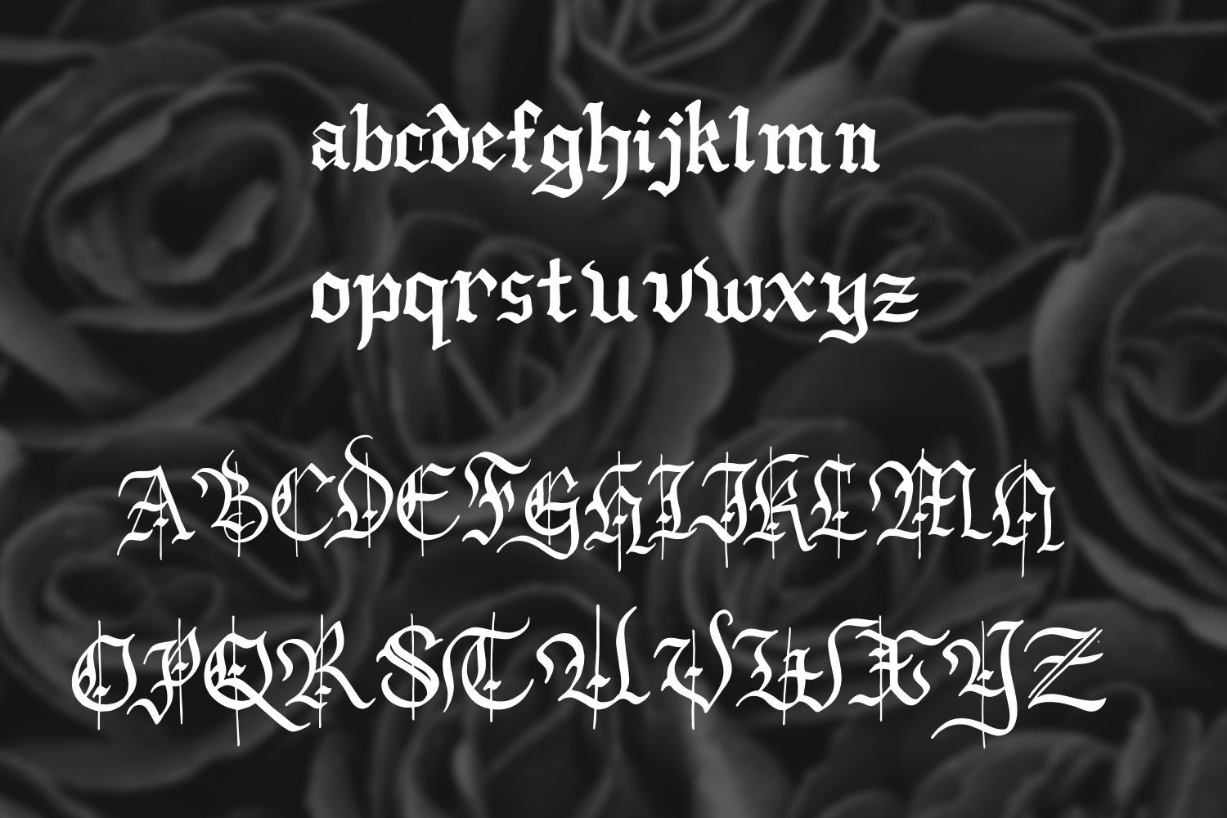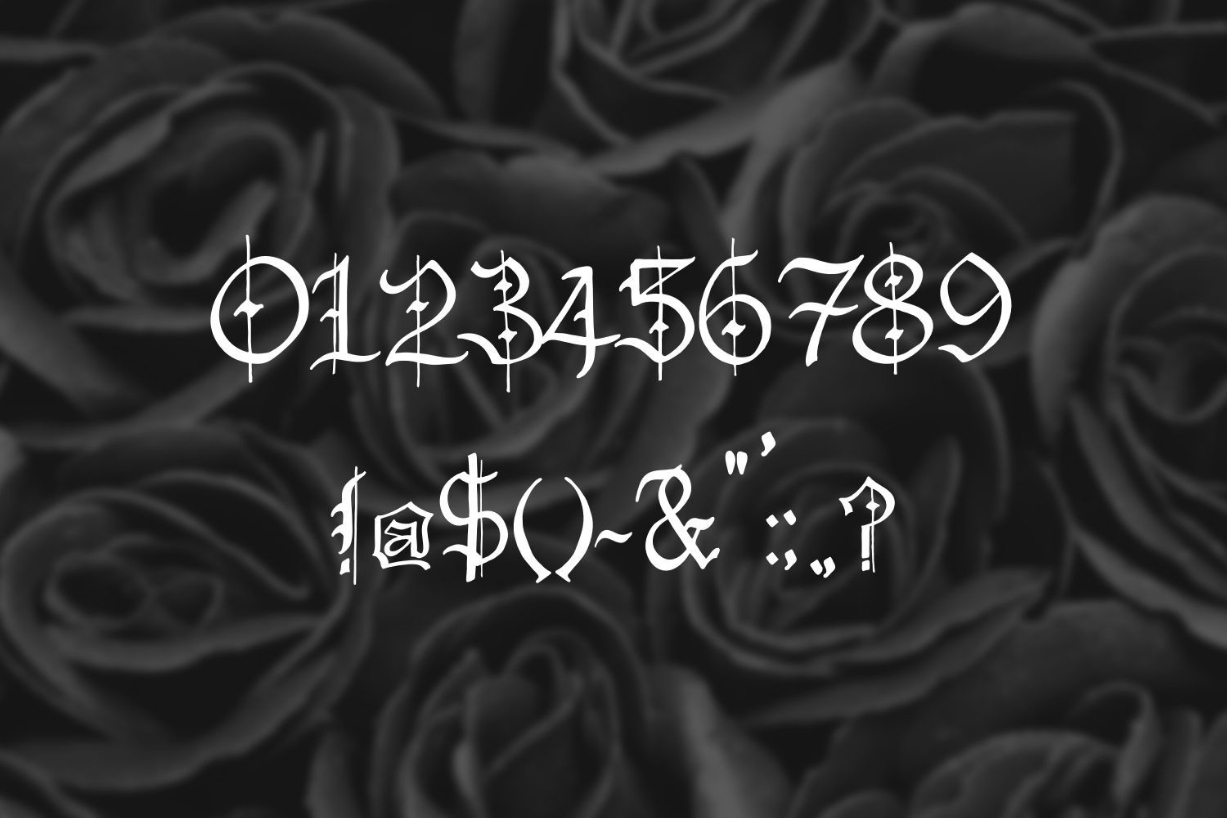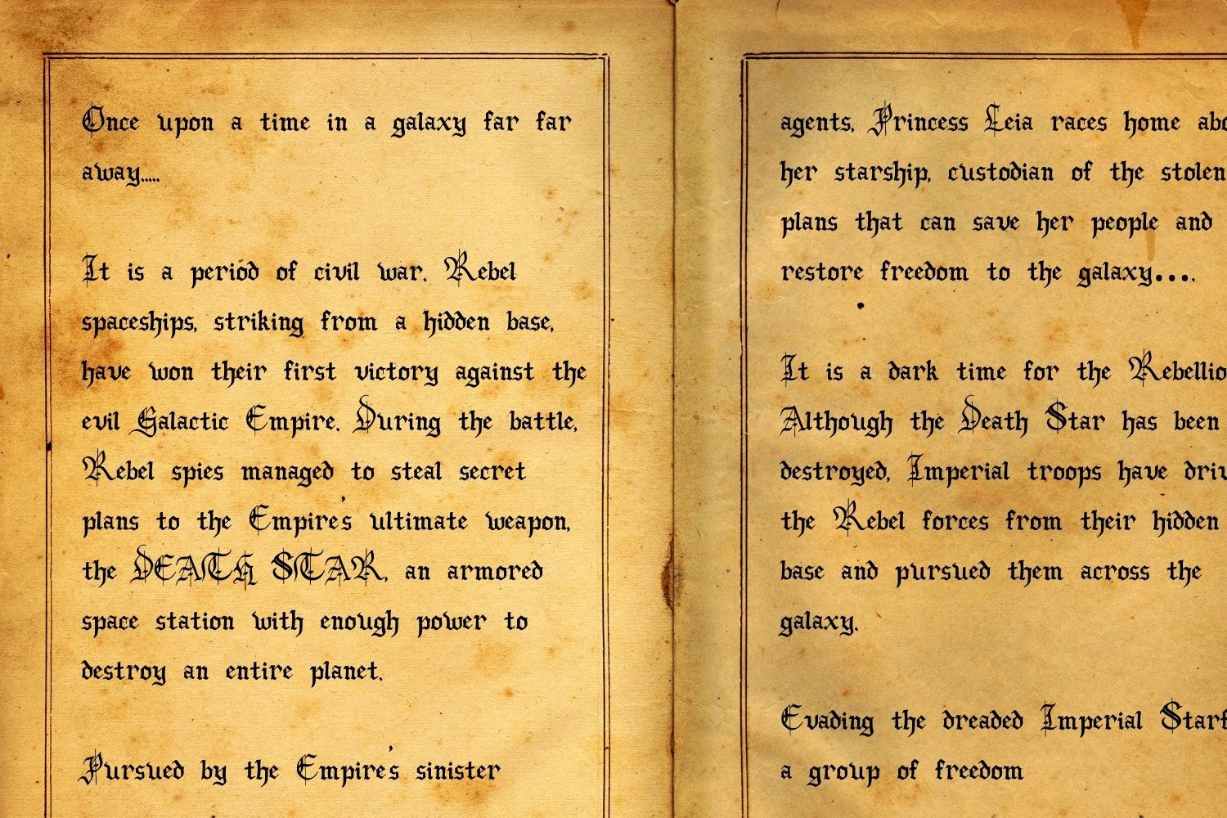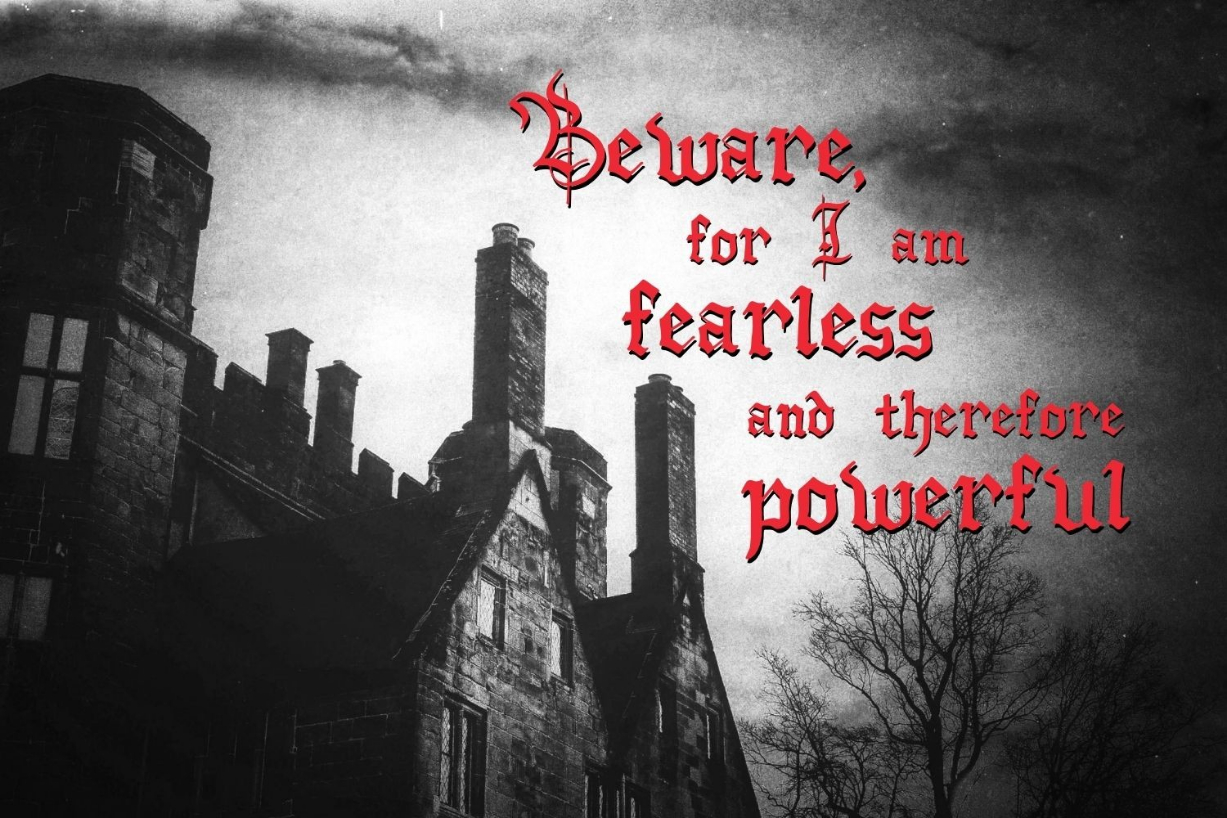
Wobbly Gothic Font
About Wobbly Gothic Font
Wobbly Gothic is an elegant and highly detailed blackletter font. It is imposing and features uniquely shaped letters, and as a result, it will easily match a wide range of creations that require a distinct touch.